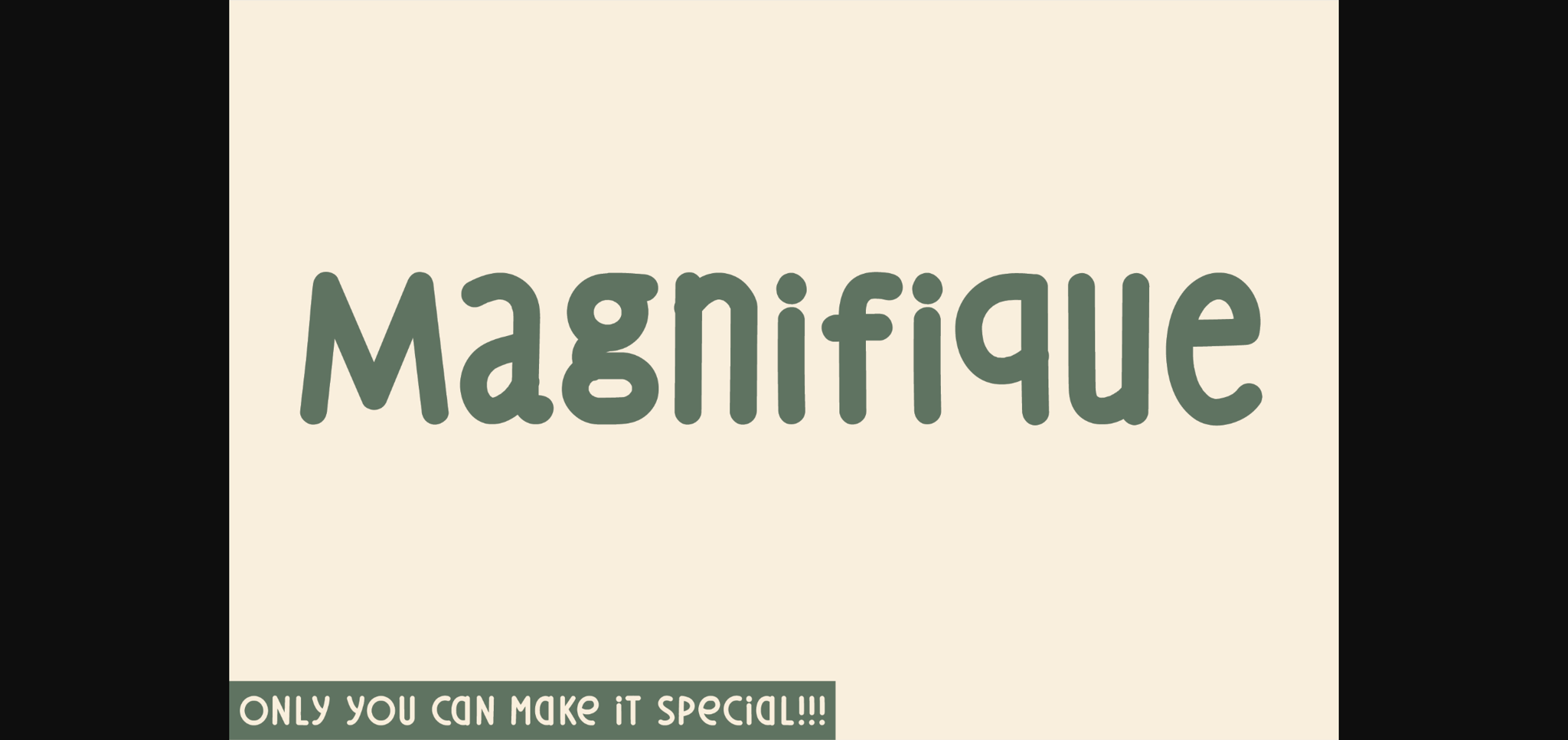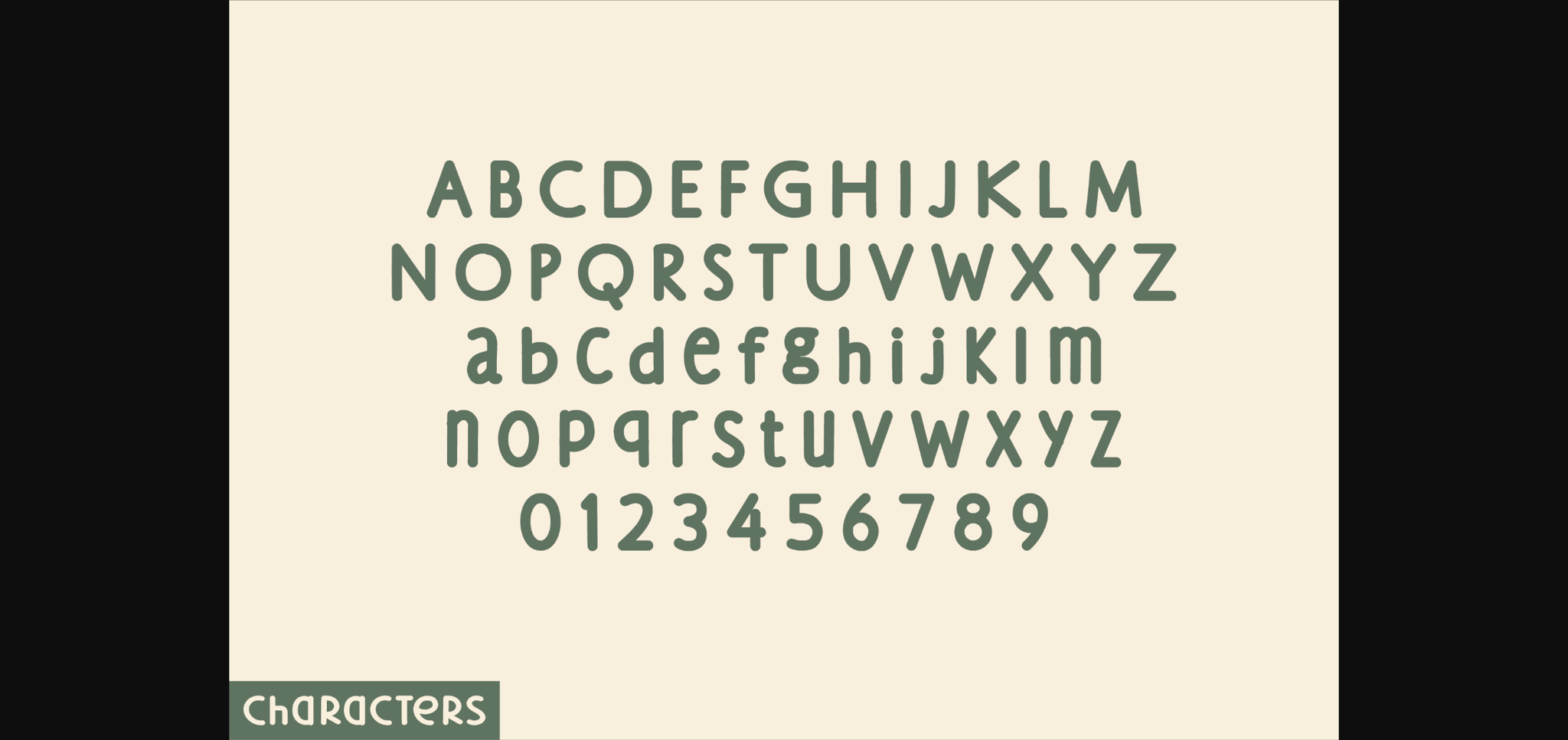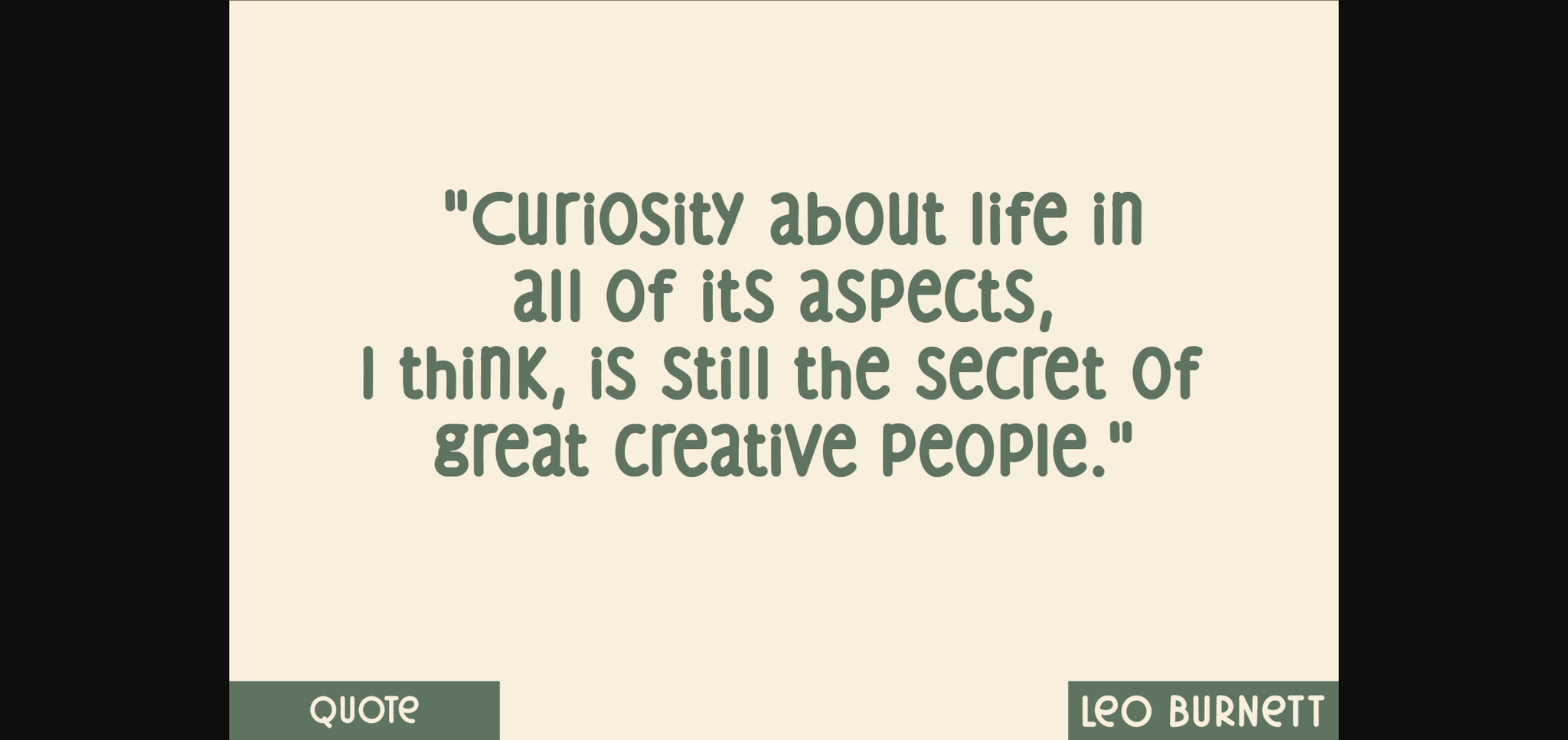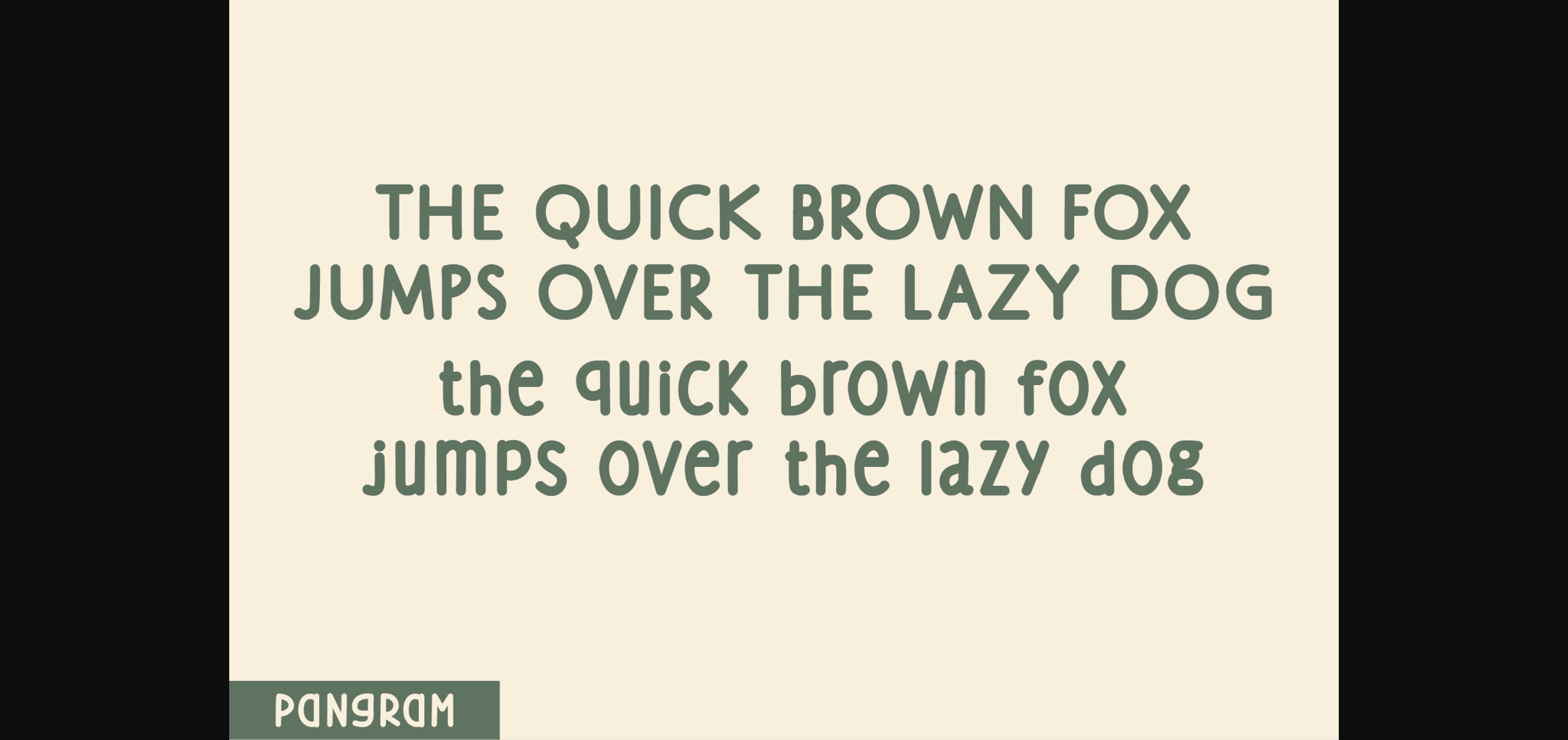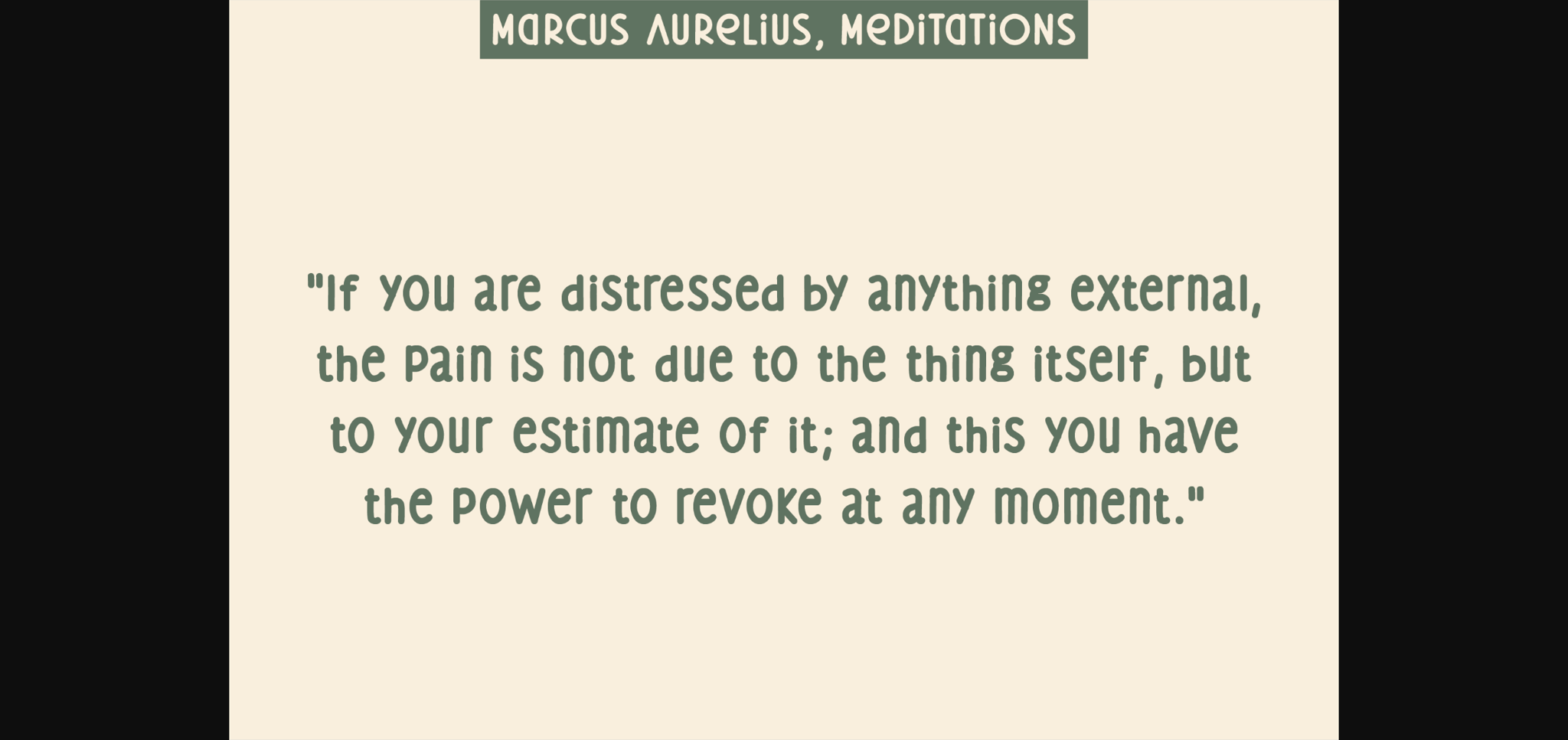
Magnifique Font
About Magnifique Font
Introducing Magnifique – the display font that elevates your design aesthetics to the next level. With a striking sans serif framework, Magnifique ushers in an innovative silhouette in typography. Each character of this font boasts of rounded tips which exudes a charming and sophisticated appeal. Magnifique finds its niche in any creation where the agenda is to convey a message that is fun, delightful, and strikingly beautiful. Evoking an emotive response, this font embraces both modern standards and classic elegance. Elevate your designs with Magnifique and let your creative expression come alive.